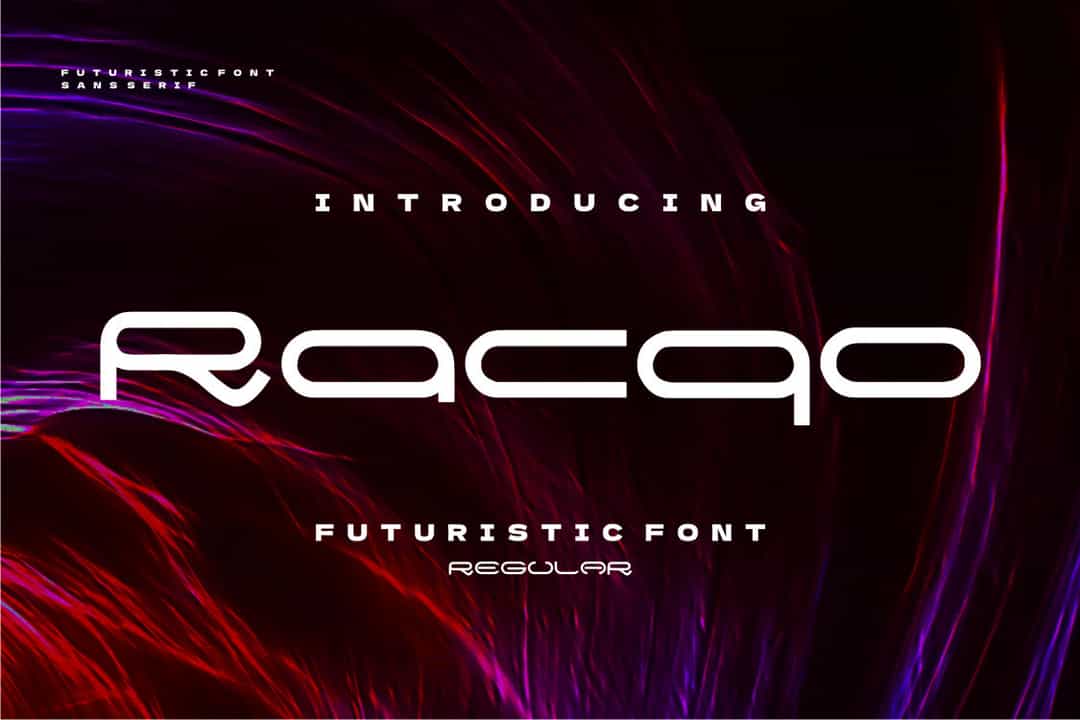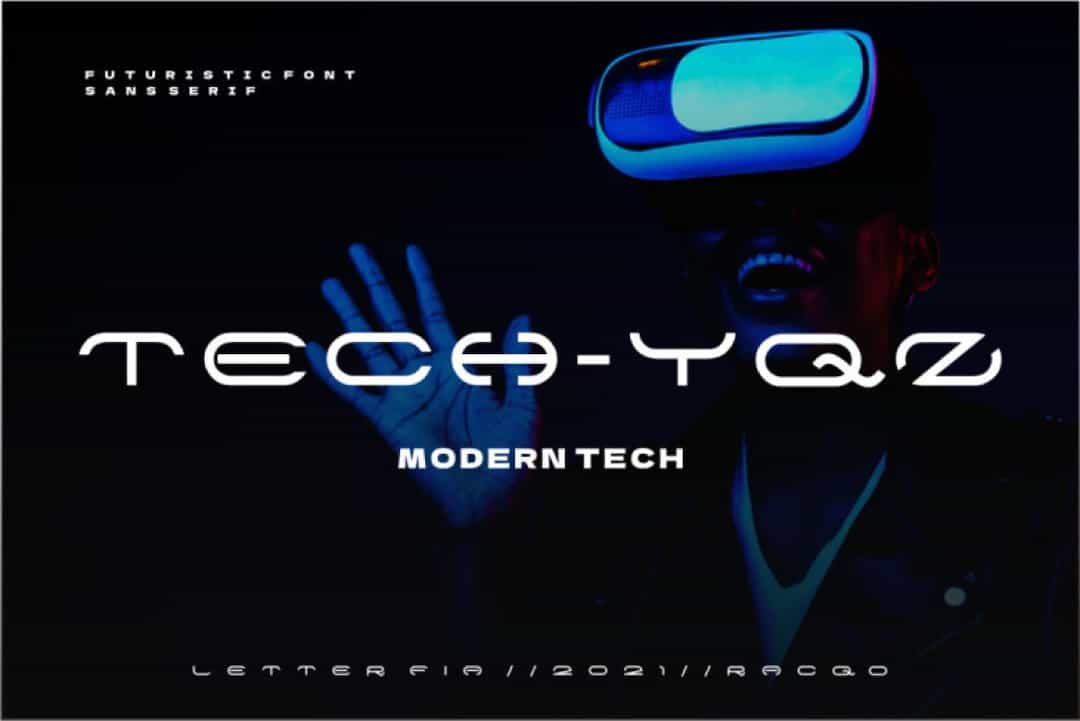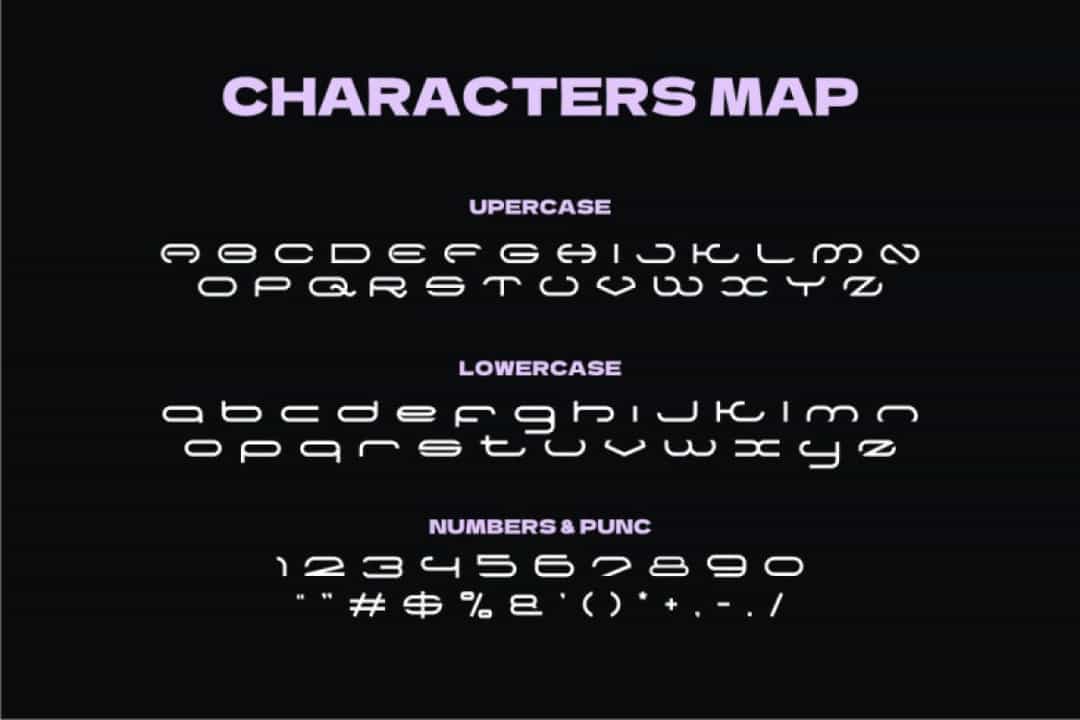
Racqo Font
Racqo Font is an eye-catching display font perfect for web design as well as business cards or anything that requires a distinctive appearance.